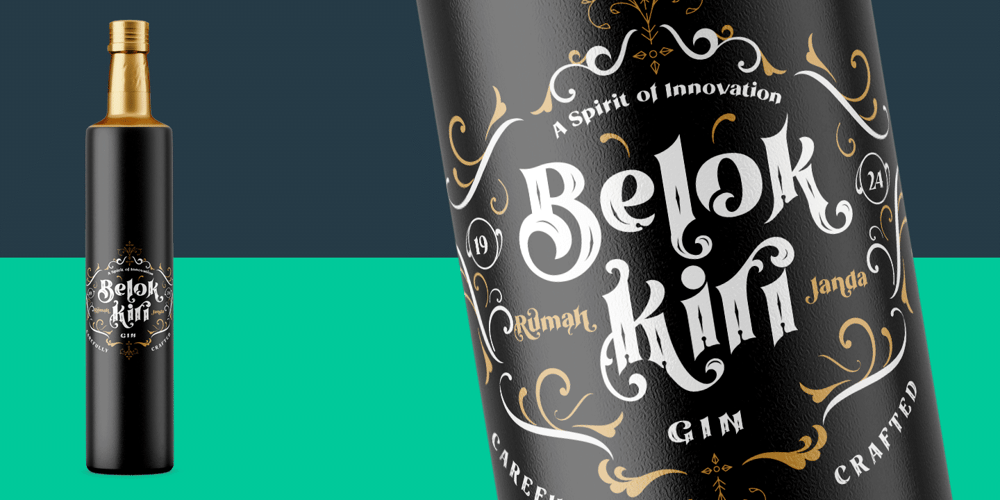
Othelie Font Family was designed by Kadek Mahardika and published by Creativemedialab. Othelie contains 3 styles and family package options. Othelie – Fashionable Gothic Font Bold and Beautiful Othelie comes in Regular & Line version with tons of alternates. Othelie is Perfect for Heading, Logo creation, Clothing design, Tattoo Lettering, Advertisements, Labels, Halloween concept, Poster and much more! Get inspired by its Gothic appeal! To access alternate: Adobe Photoshop go to Window – glyphs Adobe Illustrator go to Type – glyphs